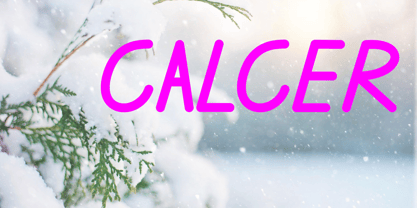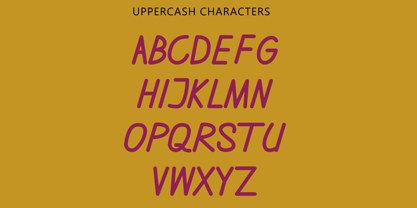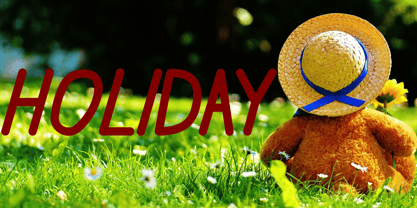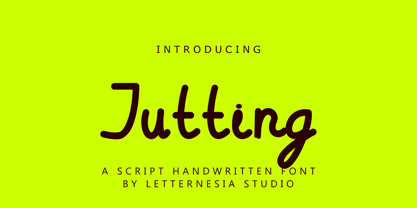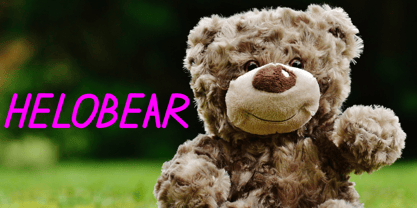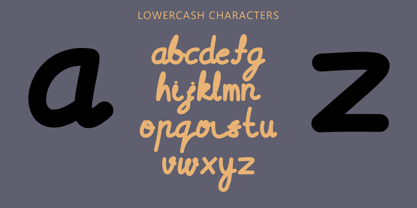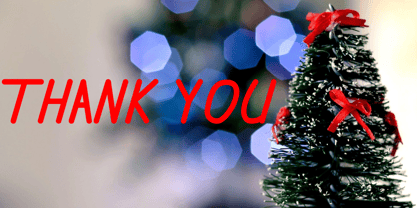
Jutting
by Letternesia studio
The Jutting Font Family was designed by Ta Siyo and published by Letternesia studio. Jutting contains 1 styles. More about this family
JUTTING – A Sharp & Sophisticated Display Typeface
JUTTING is a striking display typeface that blends precision with personality. Designed with angular cuts, clean edges, and a bold geometric structure, JUTTING stands out effortlessly in any visual composition. It communicates clarity, confidence, and a sense of forward-thinking — perfect for contemporary brands and creative projects that value both style and substance.
Ideal for branding, editorial headlines, posters, and visual identity design, JUTTING offers a modern typographic voice that is both unique and highly adaptable. Its dynamic character makes it suitable for a wide range of applications, from fashion to tech, from lifestyle to bold advertising campaigns.
JUTTING is more than just typography — it's a design statement, ready to elevate any project with a distinctive edge.
Designers: Ta Siyo
Foundry: Letternesia studio